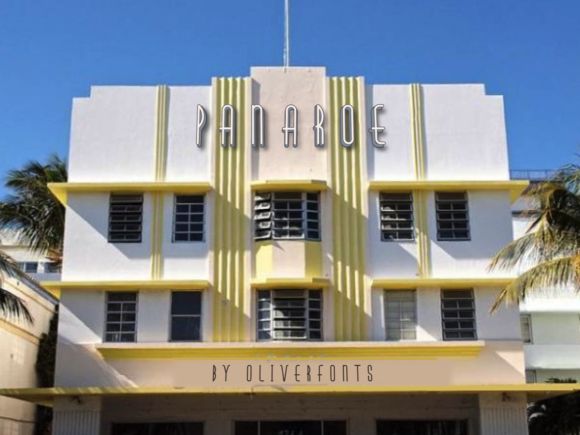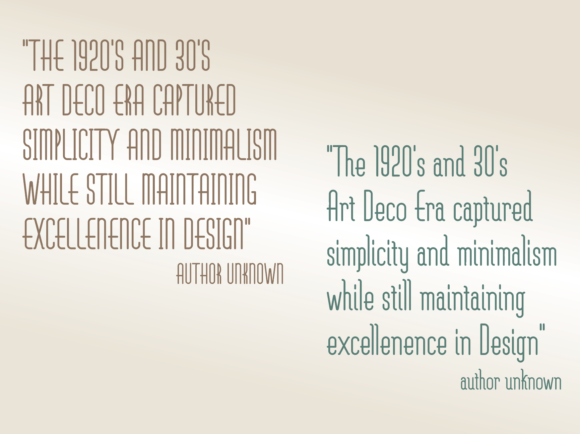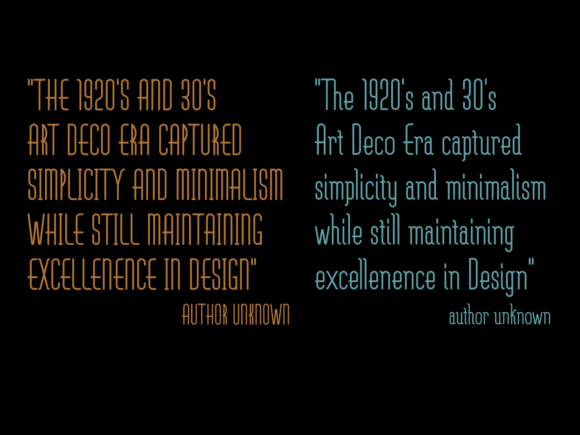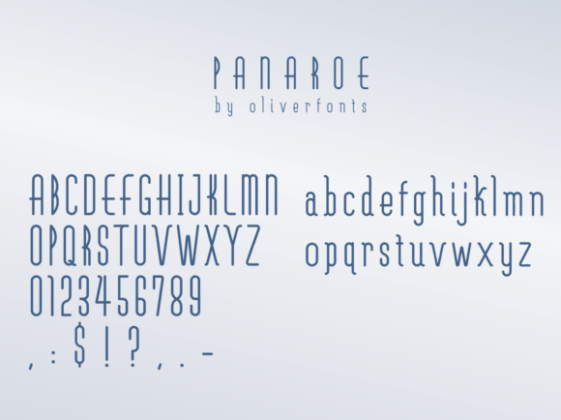
Panaroe is an original clear retro display font perfect for today and yesteryear.Fall in love with its incredibly distinct and timeless style and use it to create spectacular designs!